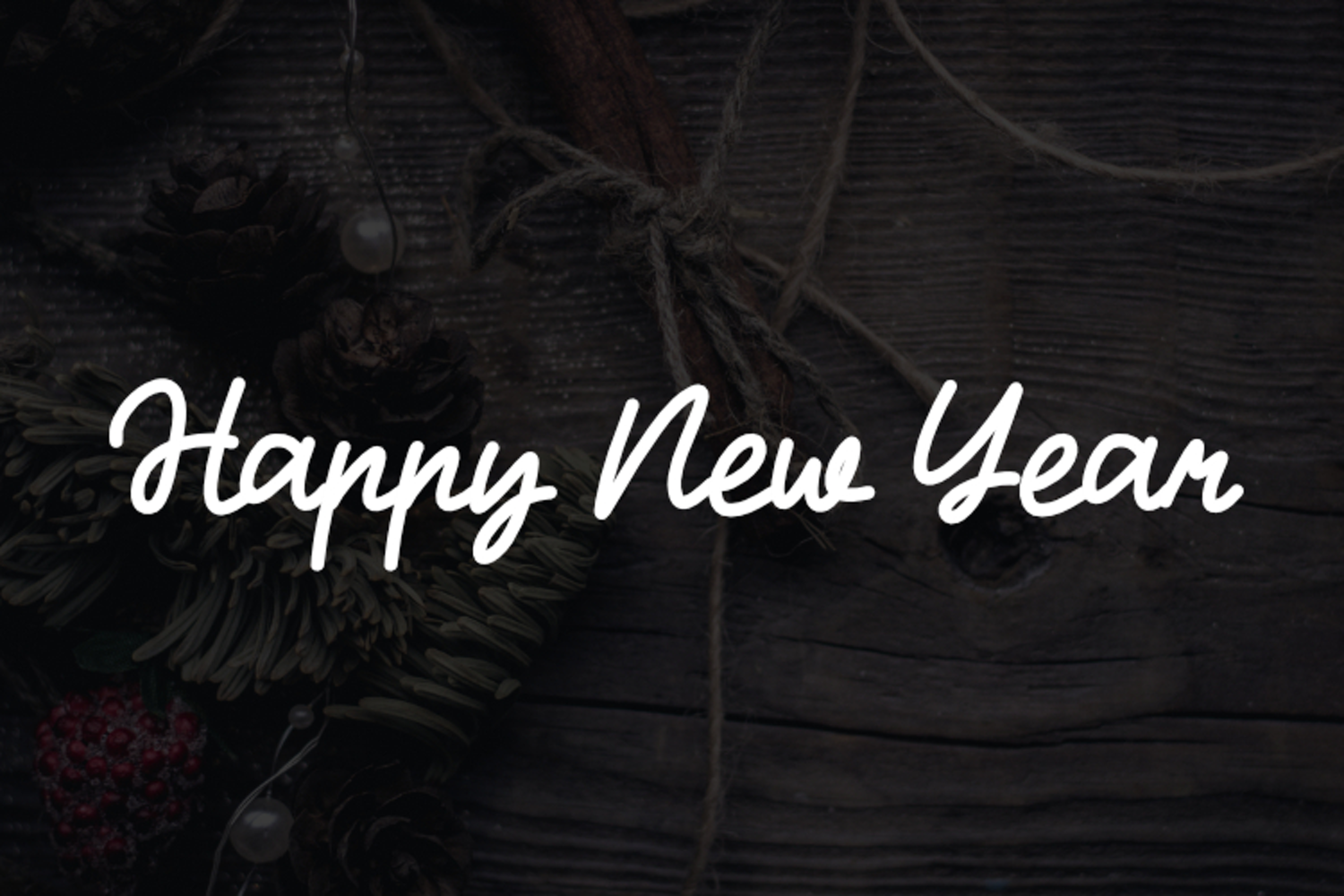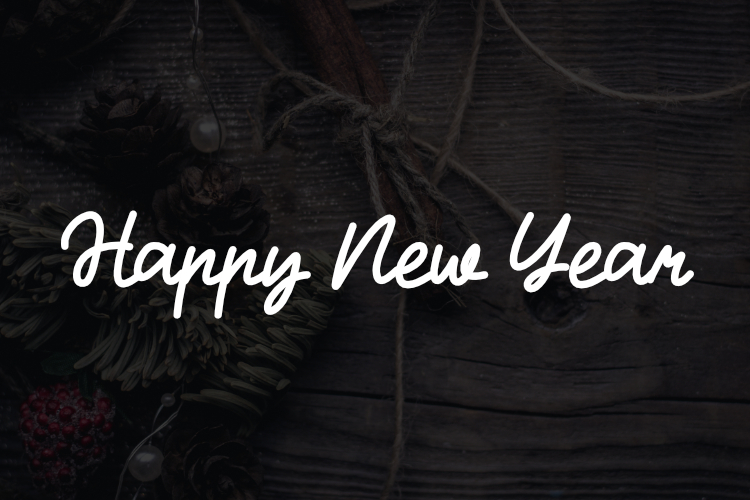
Happy New Year
Introduction Happy New Year is a modern and elegant typeface designed for flexibility and excellent readability across a variety of media. With the .otf (OpenType Font) file format, this font offers superior cross-platform compatibility, making it an ideal choice for all design software and office applications, including Adobe Creative Suite, Microsoft Office, and other design software.